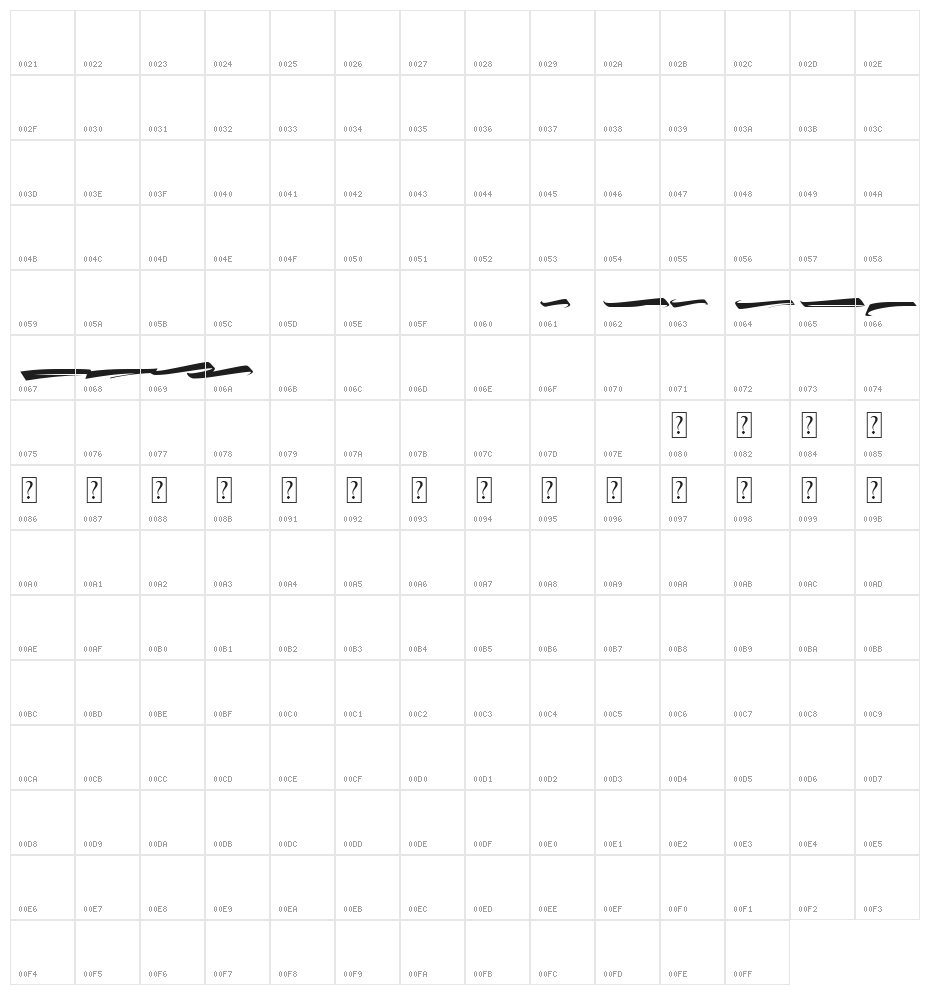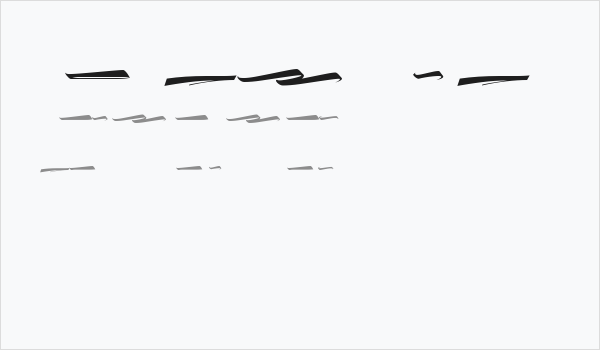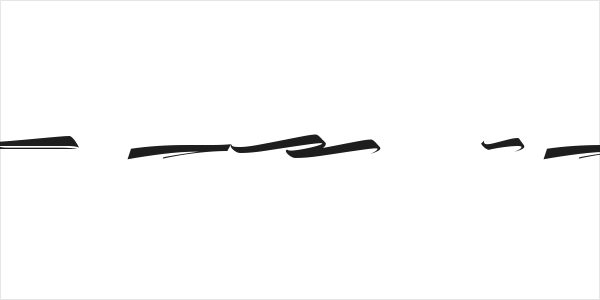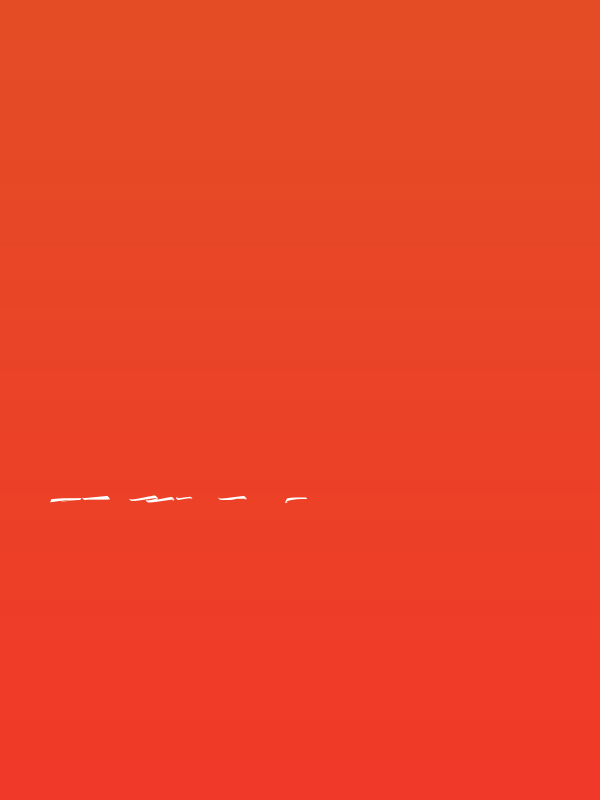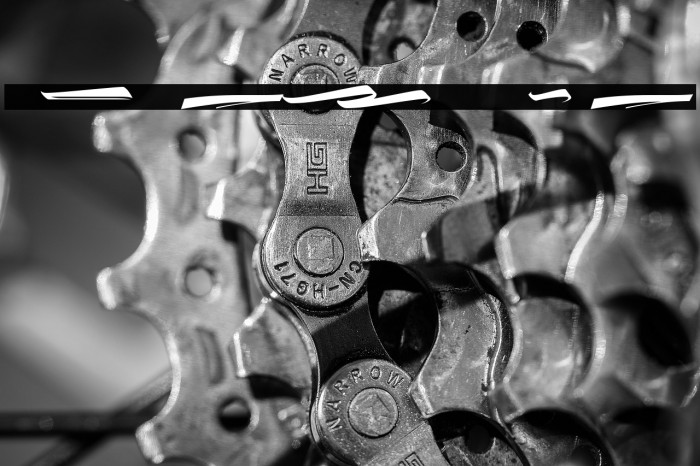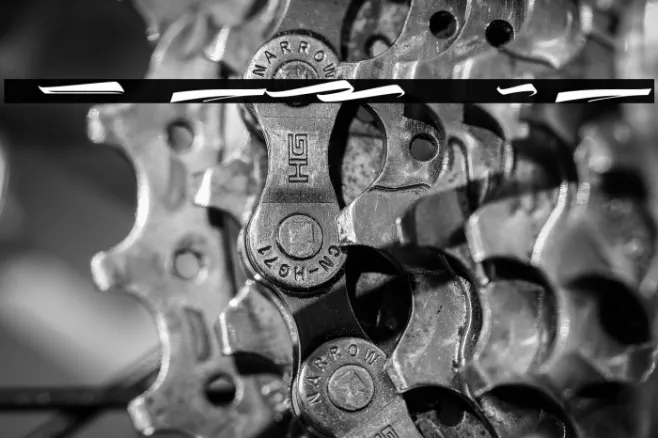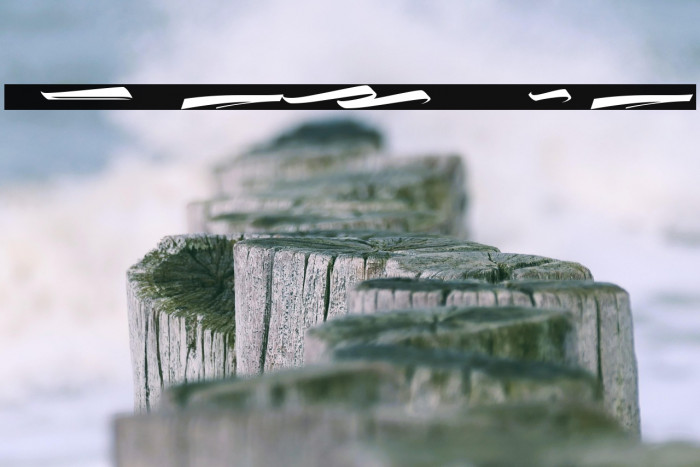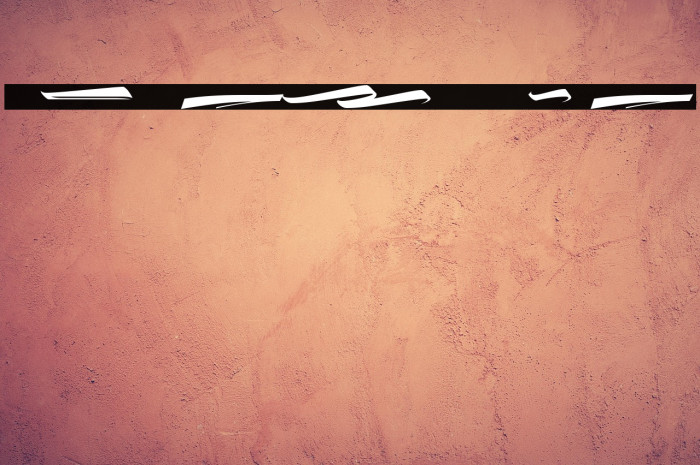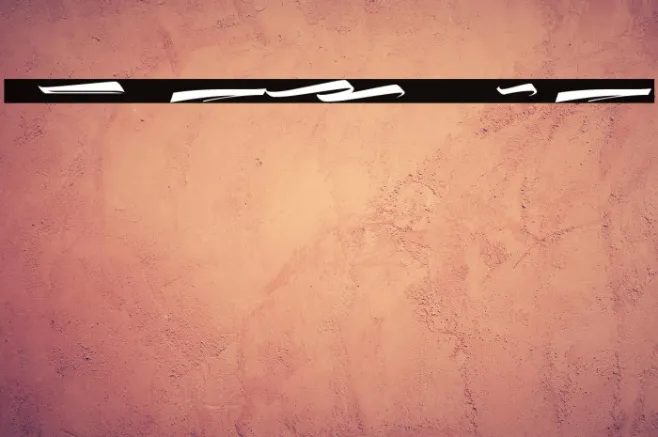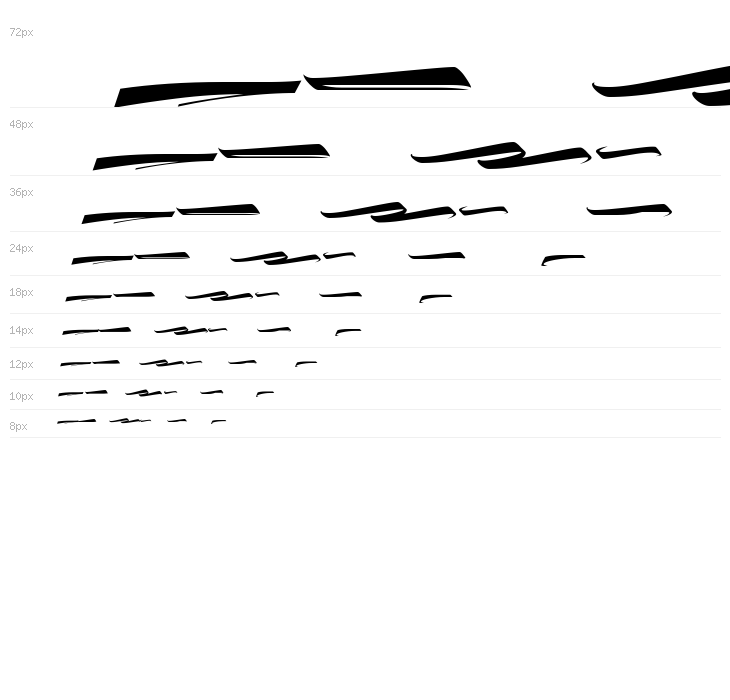
Kenthir Swash Font
Kenthir Swash Description
This font features a dynamic and flowing script style, characterized by its elegant swashes and fluid strokes. The letters are interconnected, creating a sense of continuity and movement. The overall appearance is both artistic and sophisticated, making it suitable for designs that require a touch of elegance and flair. The strokes vary in thickness, adding a sense of depth and dimension to the text. This font is ideal for creative projects that aim to convey a sense of luxury and refinement.
| Overall Style | Elegant and Artistic |
| Use Case | Logos, Invitations, Decorative Text |
| Proposed Projects | Ideal for wedding invitations, luxury branding, and artistic posters. |